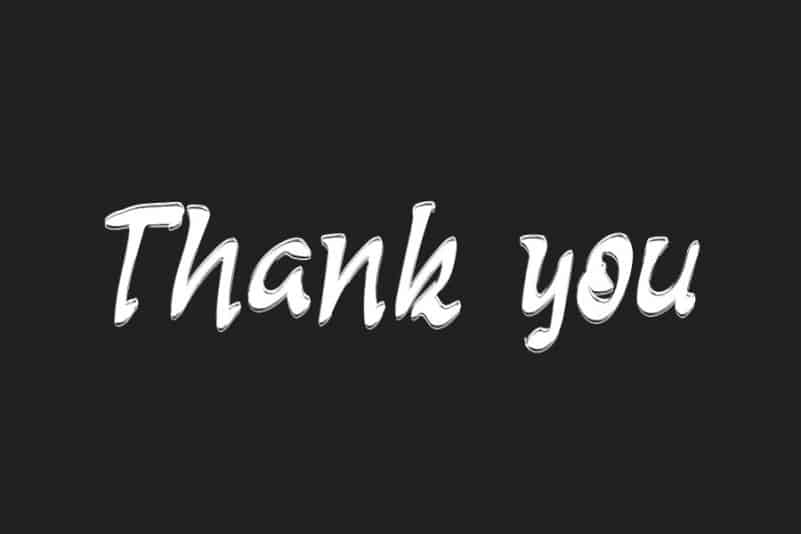
Brush Sweet Brush Font
Brush Sweet Brush Font results out of a stunning pairing of a brush pen and pencil that makes it look incredibly endearing and authentic. Use this gorgeous and unique handwritten font to bring any DIY project to life!